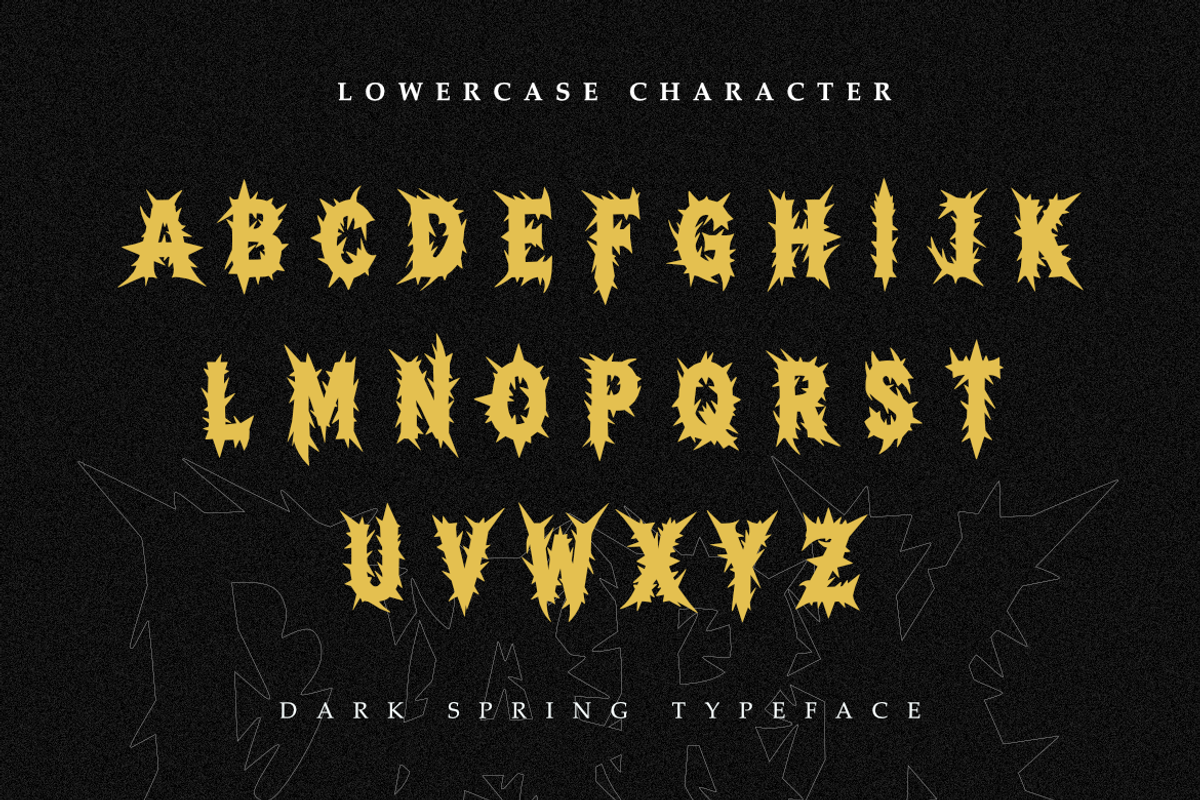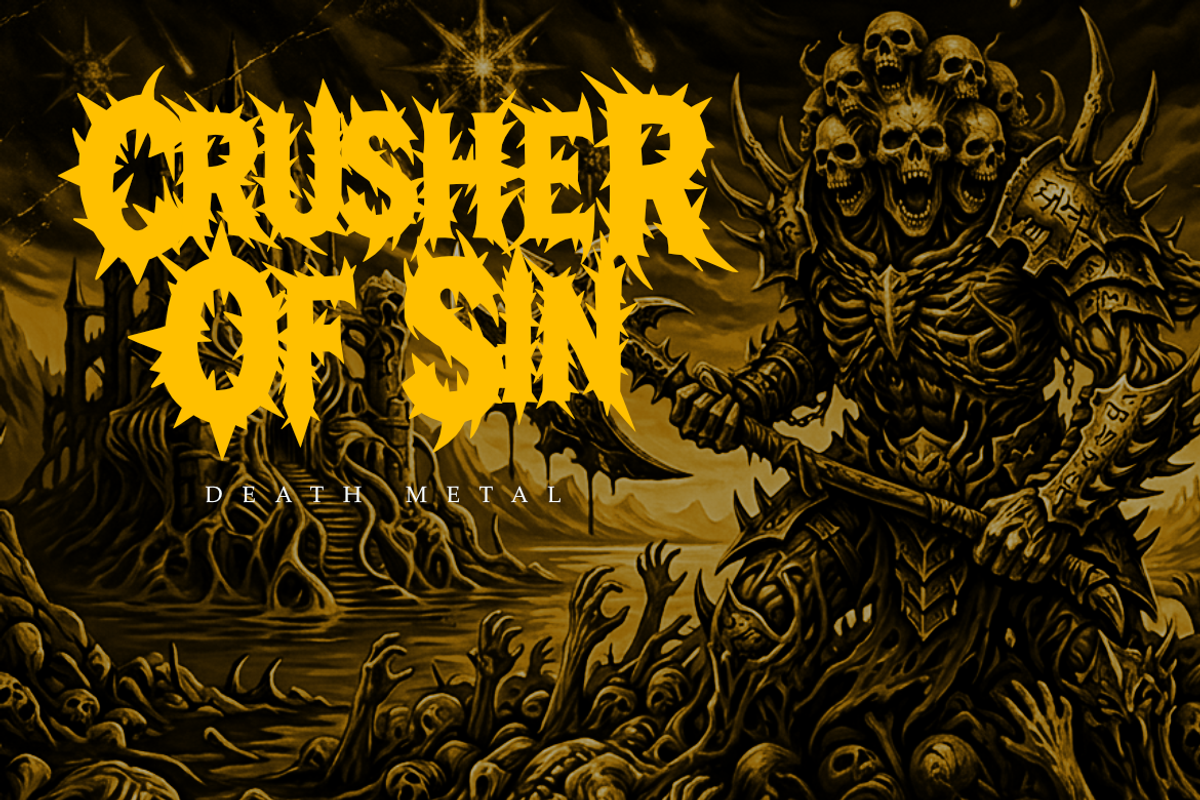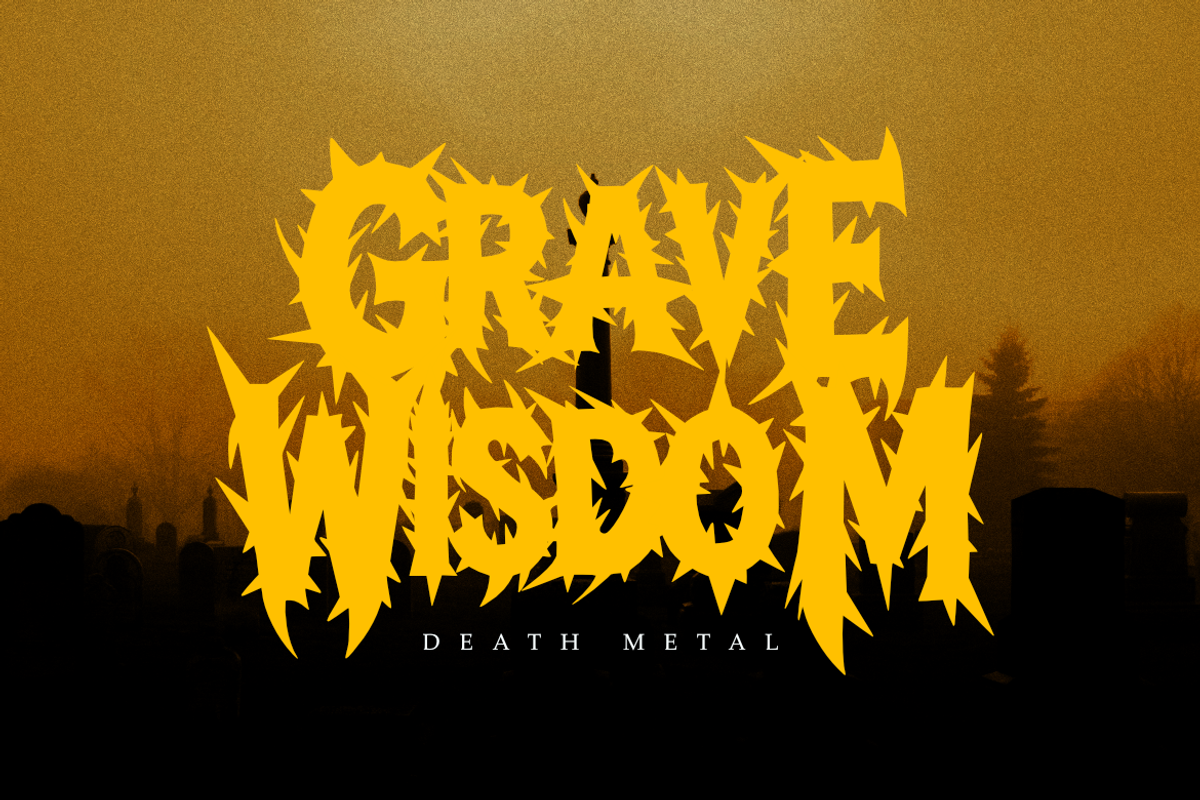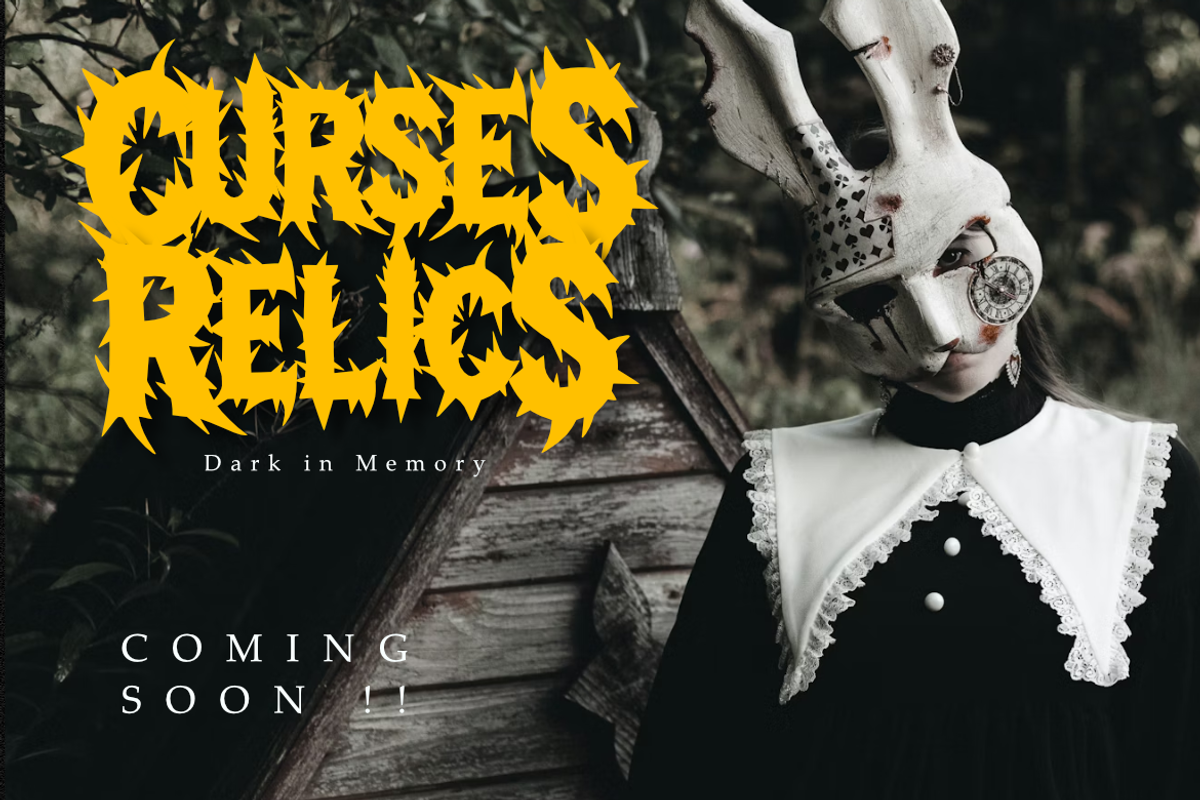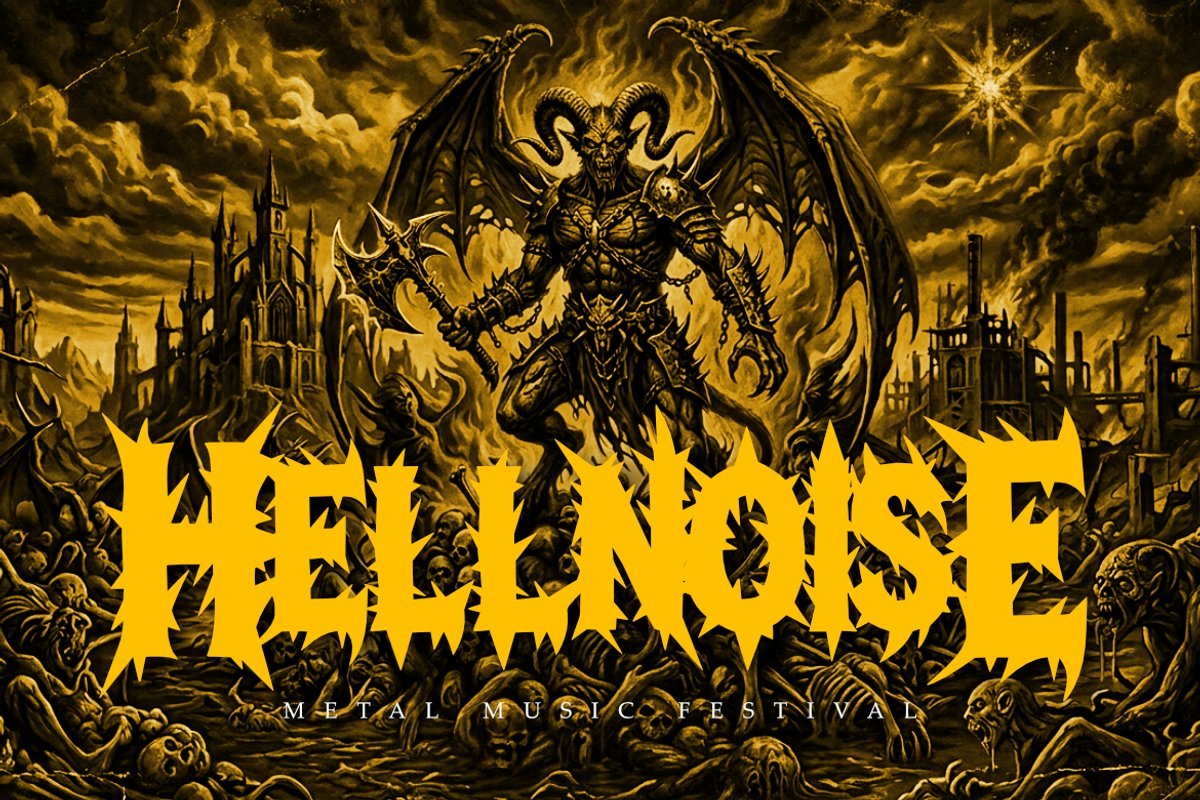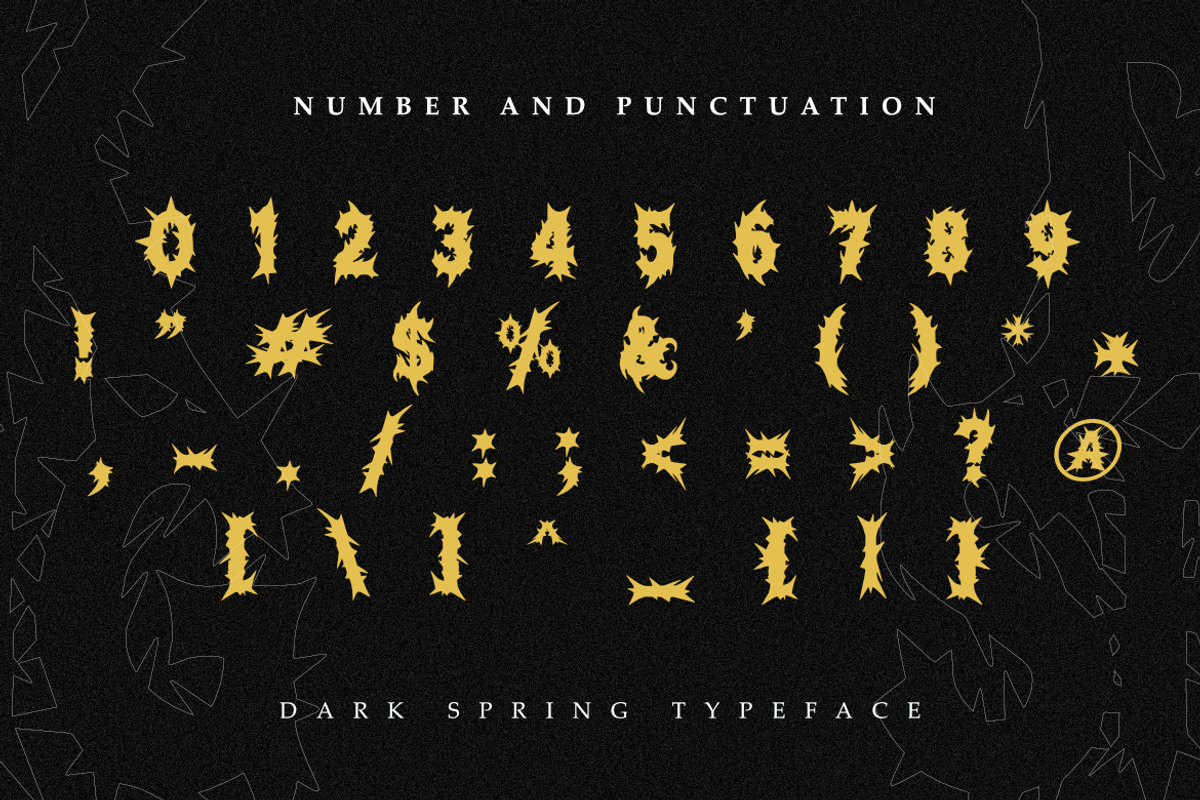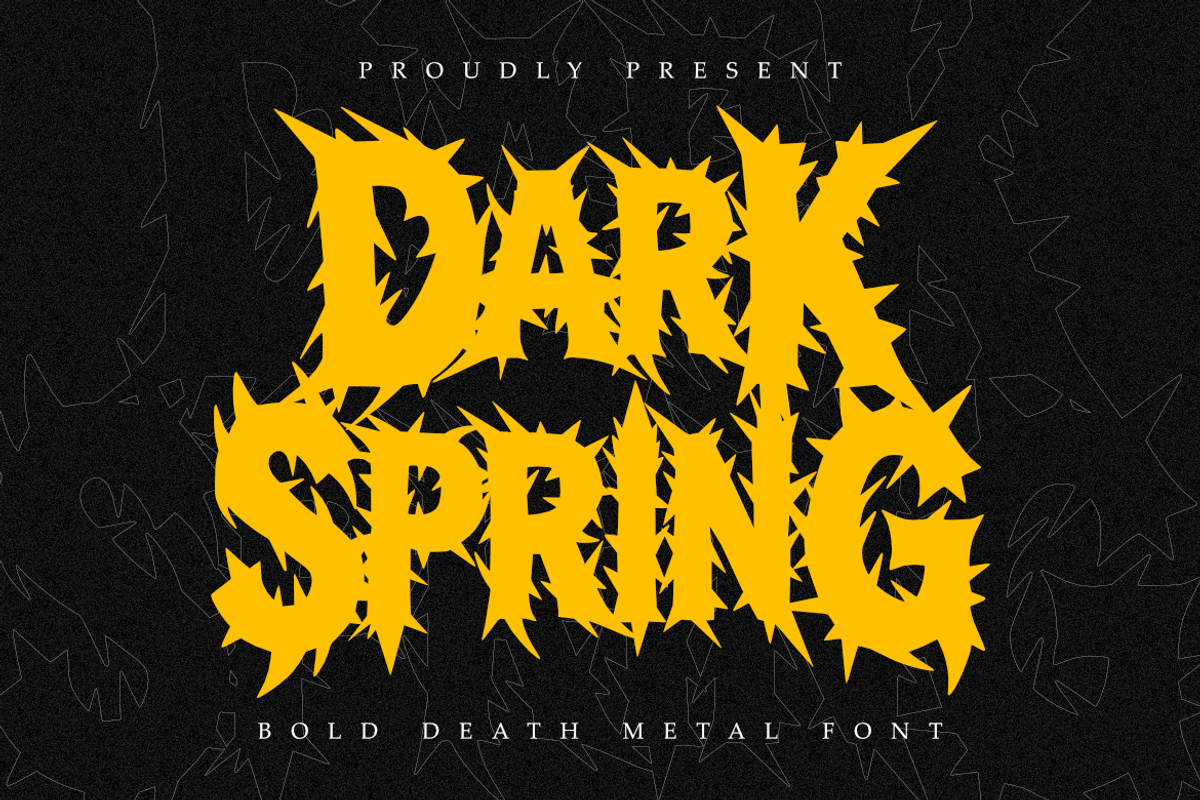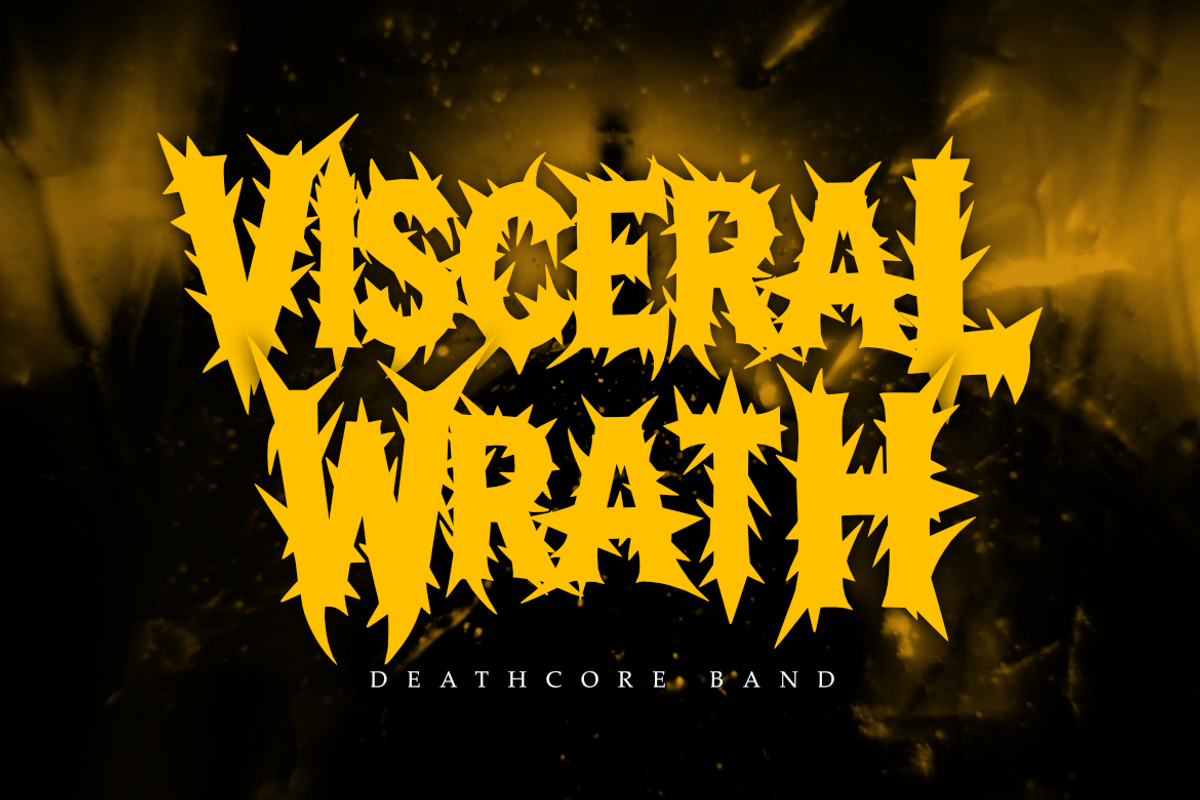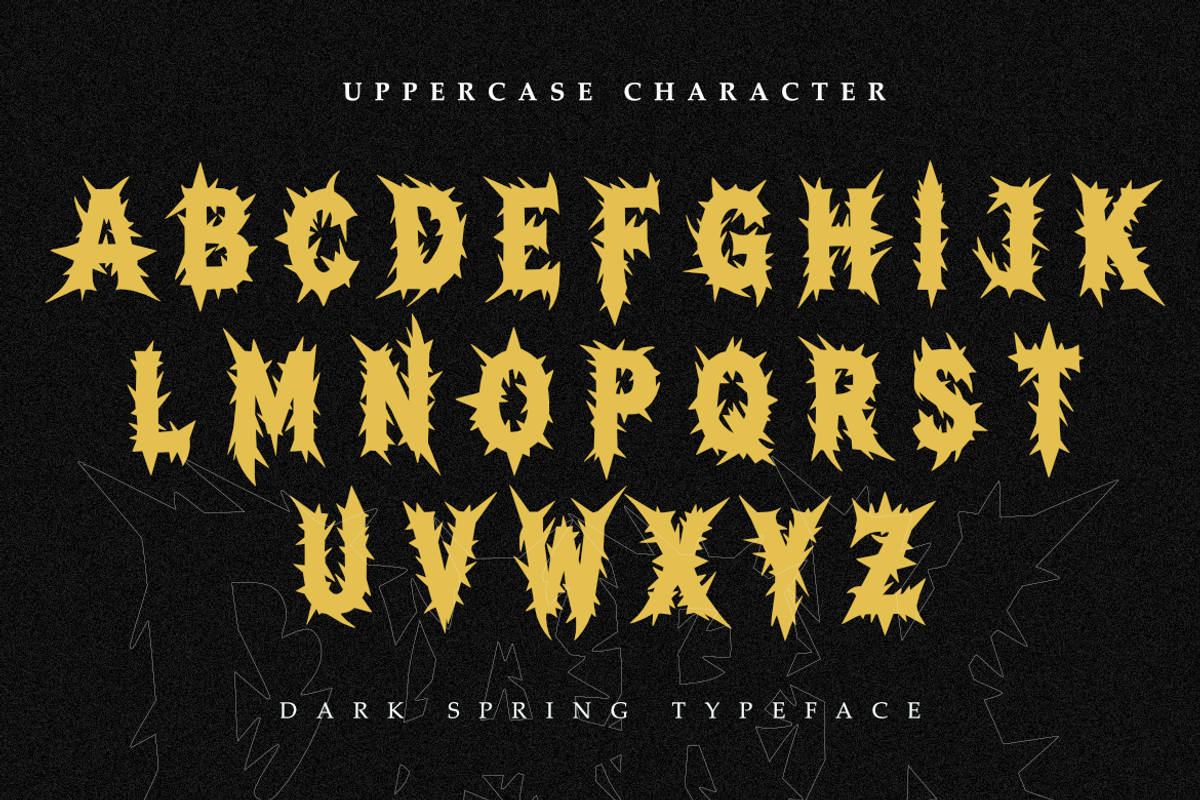
Dark Spring | Bold Death Metal Font
Elevate your extreme design projects with Dark Spring, a sophisticated death metal font meticulously crafted for precision and impact. Blending the raw energy of underground music with clean, professional lines, Dark Spring provides a premium edge to your visual identity.
Whether you are building a brand for a streetwear label, designing immersive album layouts, or creating polished promotional materials, this font delivers a sharp, professional finish. Its aggressive curves and spiked silhouettes ensure that your message commands attention in both digital and print environments.